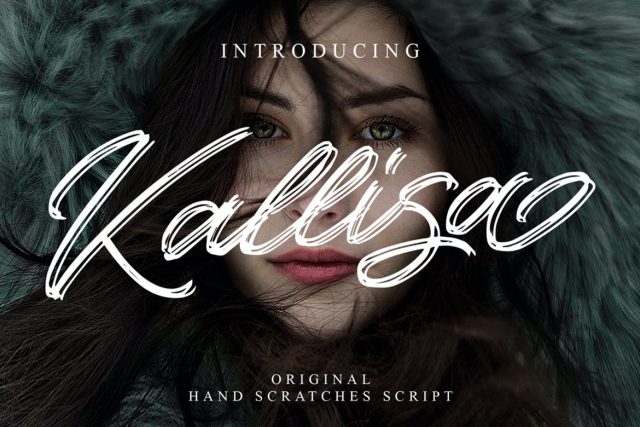
INTRODUCING KALLISA SCRIPT
Kallisa Script, I tried experimenting to make this product first i create this using pen brush on paper but I modified the tip of the cutter into 3 tip then I write with a little pressure so as to form texture 3 letter lines, I write per character repeatedly to determine the anatomy the corresponding letters then I trace into vector and I make it into a font.